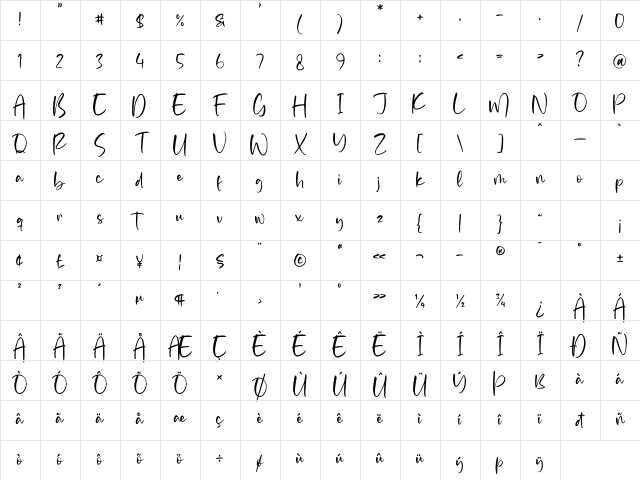
Templatos Regular Free Font
Templatos Regular
Foundry: Perspectype Studio
Designer: Heru Utama Putra
Design Context for Templatos
Templatos is a composed and adaptable typeface that performs quietly and consistently across a wide range of design contexts.